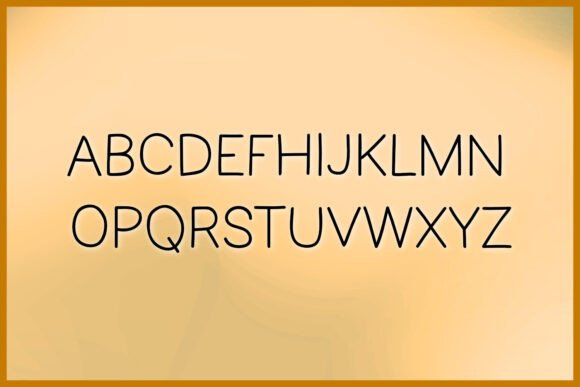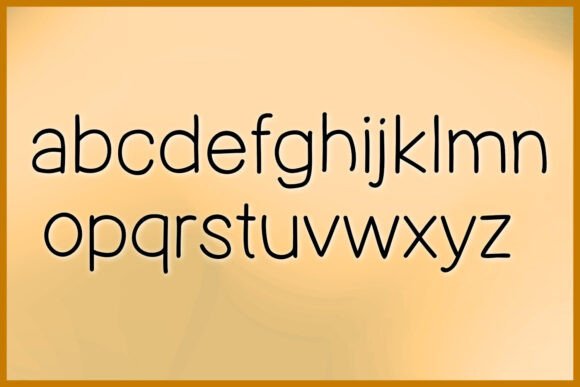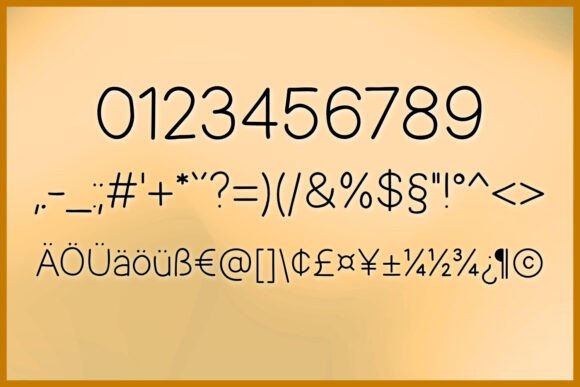
Introduction to Sans Stroke Font
Have you ever felt the thrill of bringing a creative project to life? The rush of excitement as you combine colors, shapes, and typography to convey your message? For designers, the right font can be the difference between a good design and a great one. And that’s where the Sans Stroke Font comes in – a modern, handwritten sans serif typeface that’s perfect for making your creative expressions stand out.
With its sleek, thin strokes and elegant design, the Sans Stroke Font is an invaluable resource for designers looking to add a touch of sophistication to their work. Whether you’re working on a greeting card, a captivating poster, or an impactful advertisement, this font is sure to elevate your design to the next level. And the best part? It’s available for free download, making it an accessible design resource for designers of all levels.
- Features a unique sans-serif design without stroke, perfect for adding a touch of modernity to your creative project
Honest Review: Sans Stroke Font
I recently stumbled upon the Sans Stroke Font and was excited to give it a try in my latest design project. As a designer, I’m always on the lookout for high-quality design resources that can elevate my work. The Sans Stroke Font definitely delivers.
What works well: ✨ The font is incredibly versatile and can be used for a wide range of creative projects. Its clean and modern design makes it perfect for anything from branding and marketing materials to digital products and websites. The font is also available for free download, which is a huge bonus for designers on a budget.
One limitation: ⚠️ The font may not be suitable for projects that require a more traditional or formal look. However, for most modern design projects, the Sans Stroke Font is an excellent choice.
Overall impression: I’m thoroughly impressed with the Sans Stroke Font and would highly recommend it to fellow designers. Its versatility, high quality, and free download make it an excellent addition to any design library.
Sans Stroke Font is ideal for creative projects that require a clean and modern look. It’s perfect for:
– Social media graphics
– Brochures and flyers
– Website headers and footers